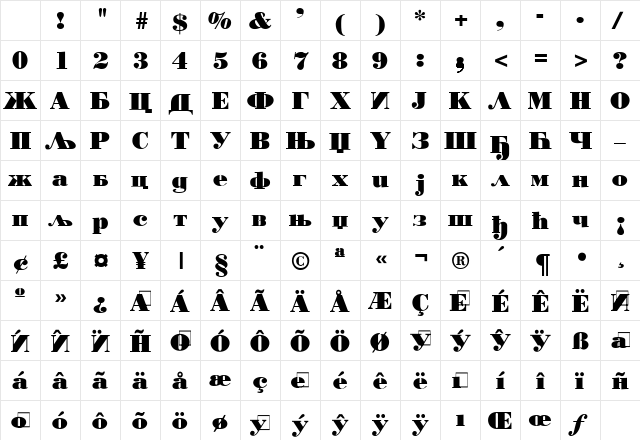
Complete Yu C Bodoni Poster Regular glyph index. Displaying only characters natively supported by Yu C Bodoni Poster Regular font.
Yu C Bodoni Poster is a composed and adaptable typeface that performs quietly and consistently across a wide range of design contexts.